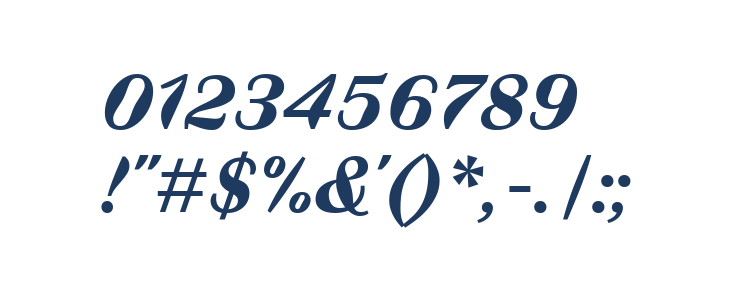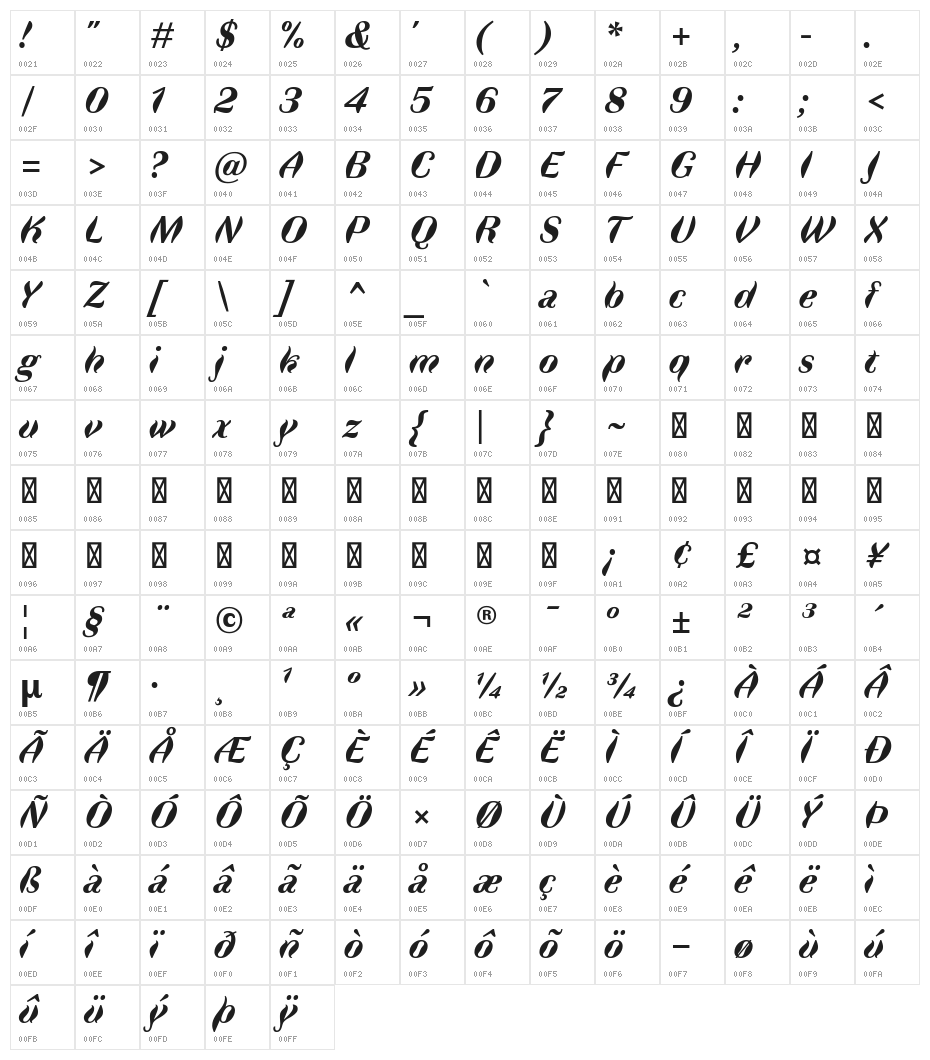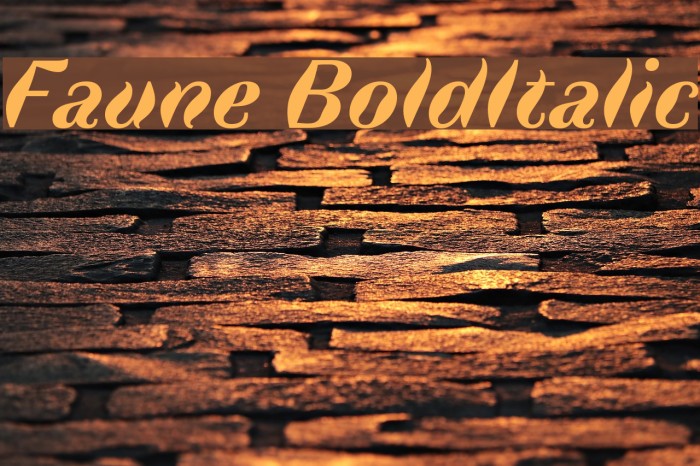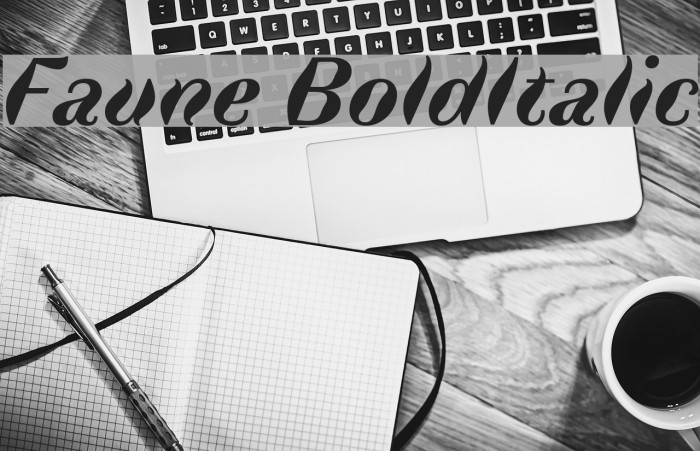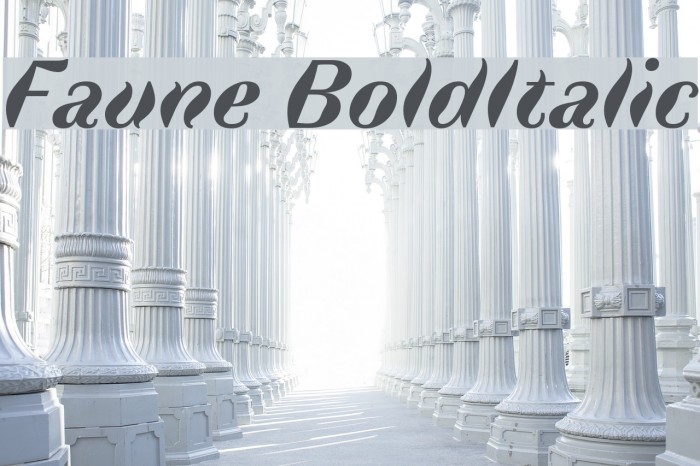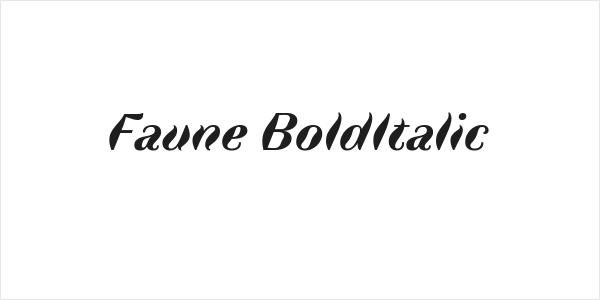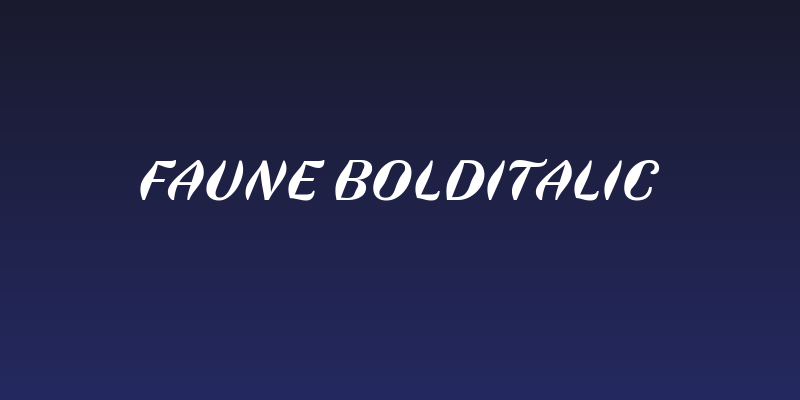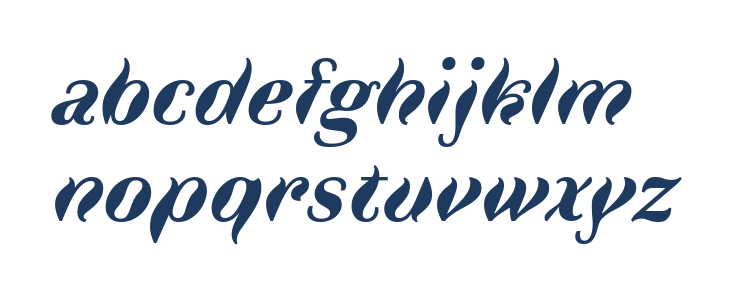
Faune BoldItalic Font
Faune BoldItalic Description
This font exhibits a bold and italicized style with a flowing, cursive-like appearance. The characters are elegantly crafted, featuring smooth curves and a slight slant that adds a dynamic and sophisticated touch. The uppercase letters are distinct and prominent, while the lowercase letters maintain a consistent flow, enhancing readability. The numerals are well-proportioned, complementing the overall aesthetic. Special characters are thoughtfully designed, maintaining the font's cohesive style. The font's bold weight and italic nature make it suitable for projects that require a touch of elegance and emphasis.